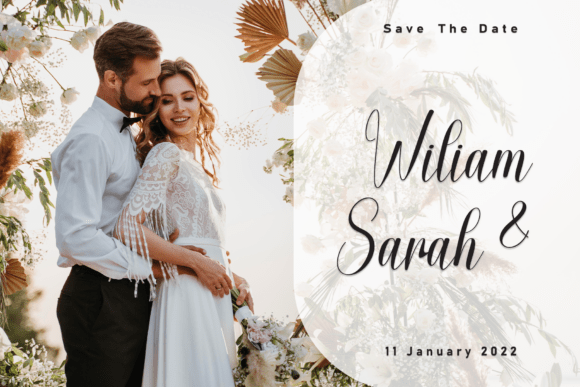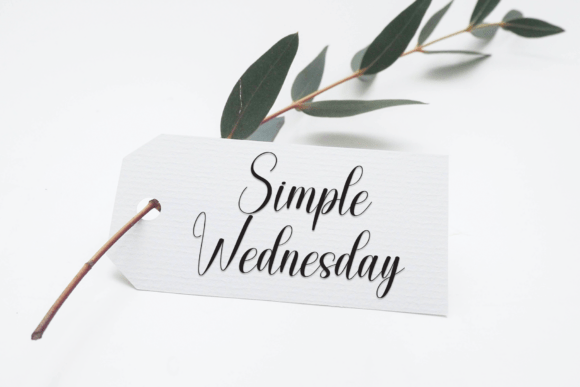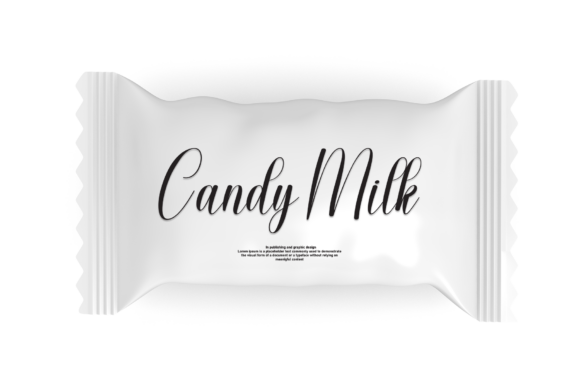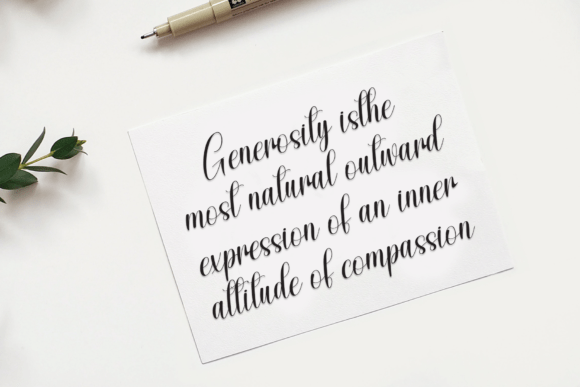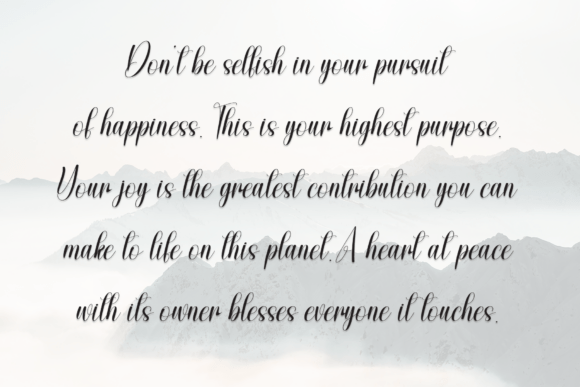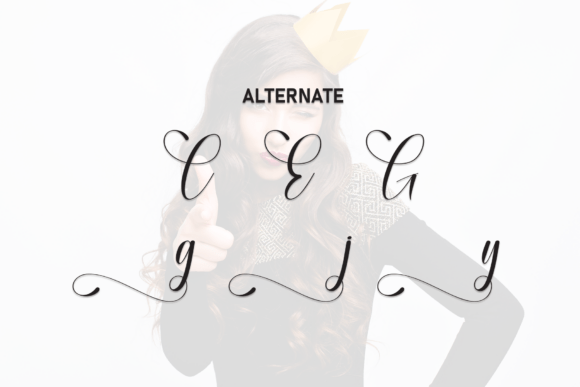
Love at First Sight: The Allure of Charming Font
Have you ever found yourself lost in a sea of design possibilities, searching for that perfect font to capture the essence of your next creative project? It’s that moment when inspiration strikes, and the world comes alive with endless possibilities. For designers, this moment is often a quest for the perfect typeface – one that exudes elegance, sophistication, and romance.
Enter Charming Font, a breathtaking “Beautiful Font Collection” designed to mesmerize and enchant. This exquisite typeface is a masterclass in modern calligraphy, boasting long, sweeping swashes and delicate flourishes that evoke the beauty of hand-penned ink. With its fluid, rhythmic strokes, the Charming Font is the ultimate tool for luxury event branding, wedding stationery, and boutique fashion labels.
Key Features of Charming Font
- Unique Characteristics: Charming Font features a unique blend of classic and modern design elements, with intricate details and ornaments that add a touch of elegance to any text.
Designer Review: Charming Font
✨ I must say, I was quite impressed with the overall feel and aesthetic of the Charming Font. It has a beautiful, elegant look that can add a touch of sophistication to any design project. The font’s cursive nature and subtle flourishes make it perfect for titles, headings, and other display text. It’s also quite versatile, working well in both digital and print media.
Some of the key features that I like about the Charming Font include:
- ✨ Elegant and sophisticated feel
- ✨ Beautiful cursive design
- ✨ Suitable for both digital and print media
- ✨ Includes a wide range of characters and glyphs
However, there are a few limitations that I’d like to mention:
- ⚠️ Limited font sizes: While the font looks great at larger sizes, it can become quite messy and difficult to read at smaller sizes.
- ⚠️ Not ideal for body text: Due to its cursive nature, the Charming Font may not be the best choice for large blocks of body text.
Overall, I think the Charming Font is a great choice for designers who want to add a touch of elegance and sophistication to their projects. Just be sure to use it wisely and in the right context.
Tips for Getting the Most Out of Charming Font
For the best results, use Charming Font in conjunction with other elegant design elements, such as cursive scripts and watercolor backgrounds.
Experiment with different font sizes and colors to create a visually appealing contrast.
Use Charming Font to add a touch of sophistication to your designs, such as wedding invitations, business cards, and menus.
Charming Font is ideal for: